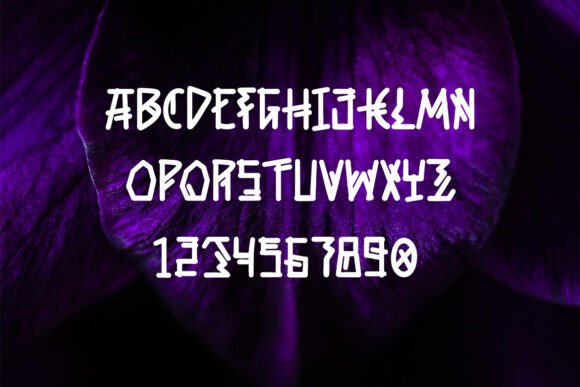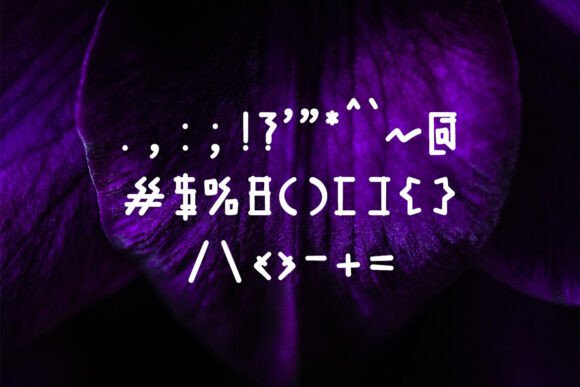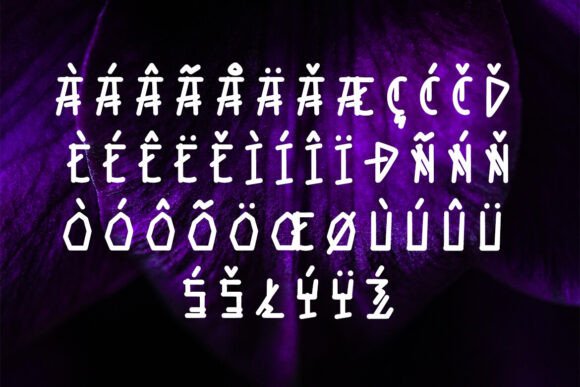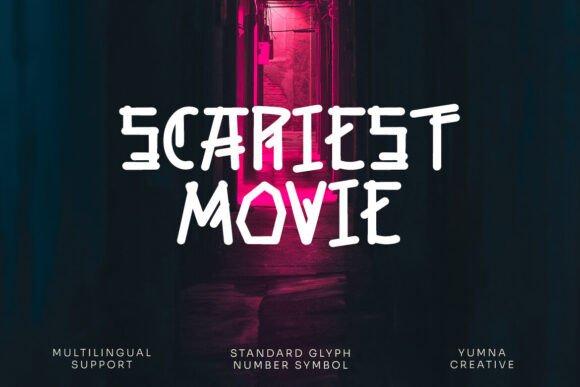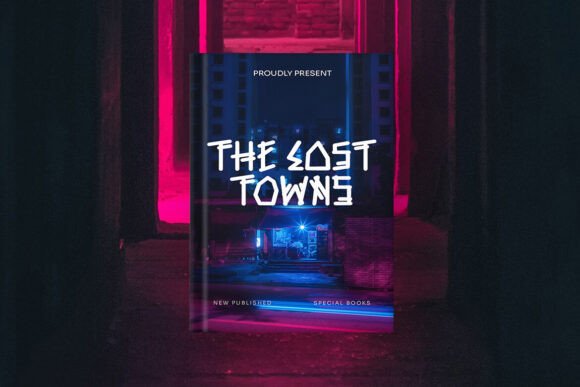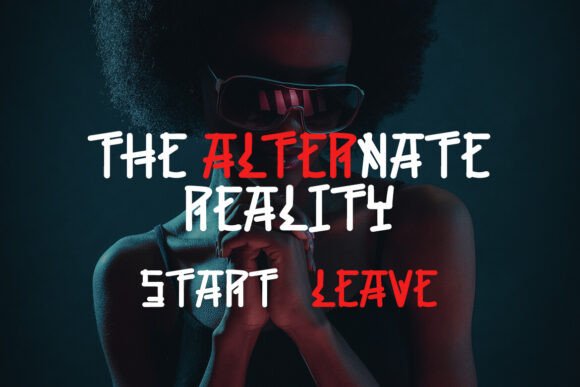
Introduction to Slytheriv Font
Have you ever stared at a blank canvas, trying to come up with the perfect font to make your design pop? That’s where the magic happens – in those moments of creative frustration, when the right font can turn your project from meh to mesmerizing. For designers, finding the perfect font can be a game-changer, and that’s where the Slytheriv Font comes in – a bold and stylish urban font that’s about to revolutionize your design game.
This high-quality font boasts sharp edges and smooth curves, giving it a modern, edgy look that’s perfect for street-style designs, logos, and headlines. Whether you’re working on a creative project or just need a design resource that packs a punch, the Slytheriv Font is your new go-to. And the best part? You can download it for free, making it an accessible and valuable addition to your design arsenal.
With its sleek and powerful feel, the Slytheriv Font is ideal for designers who want to create eye-catching designs that stand out from the crowd. And with a transparent background, you can easily integrate it into your projects without any hassle. Get ready to take your designs to the next level with the Slytheriv Font – your new secret design weapon.
Key Features of Slytheriv Font
- Unique, hand-drawn style with a transparent background, ideal for use in digital design
- Perfect for use in logos, branding, and other creative projects where a unique, high-quality font is needed
Honest Review: Slytheriv Font
I recently had the chance to work with the Slytheriv Font and I must say, I’m impressed with its high quality. As a designer, I’m always on the lookout for new design resources to enhance my creative projects, and this font definitely delivers.
One of the standout features of the Slytheriv Font is its transparent background, which makes it a great option for designers who want to add some flair to their designs without overwhelming the background. Plus, it’s available for free download, which is a definite plus in my book!
Overall, I’m a big fan of the Slytheriv Font and would definitely recommend it to fellow designers. While it may have a few limitations, its high quality and transparent background make it a valuable addition to any design resource library.
The Slytheriv Font is a high-quality, free download that offers a unique and stylish design resource for your creative projects. Its transparent background makes it easy to use in various design applications.
Tips for Getting the Most Out of Slytheriv Font
To get the most out of the Slytheriv Font, use it in combination with other design elements, such as images and graphics. Experiment with different font sizes, colors, and styles to create a unique and eye-catching design.
The Slytheriv Font is suitable for various design projects, including business cards, brochures, posters, and social media graphics. Its high-quality design and transparent background make it a versatile resource for any creative project.
Is the Slytheriv Font suitable for use in logos and branding?
Yes, the Slytheriv Font is a great choice for logos and branding projects. Its unique design and high-quality rendering make it perfect for creating eye-catching logos and brand identities. The font’s versatility also allows you to use it in a variety of contexts, from digital to print applications.